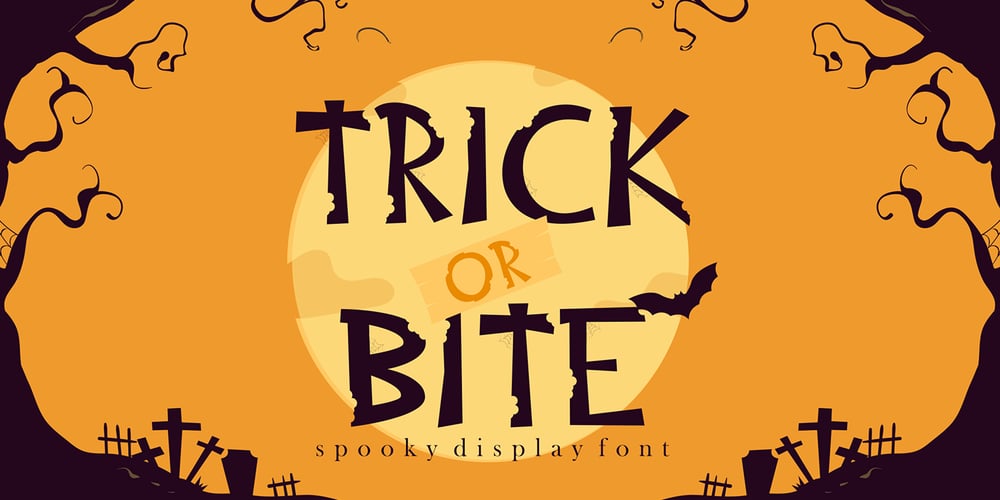
Trick or Bite
Trick or Bite font
Trick or Bite Font Family was designed by Sipanji and published by Sipanji21. Trick or Bite contains 1 styles and family package options. Trick or Bite is an incredibly unique horror display font, with bite and spider webs in any characters. Add this font to your favorite Halloween themed ideas and notice how it makes them come alive. Trick or bite is perfect for posters, packaging, banners, advertising, apparel, and more.